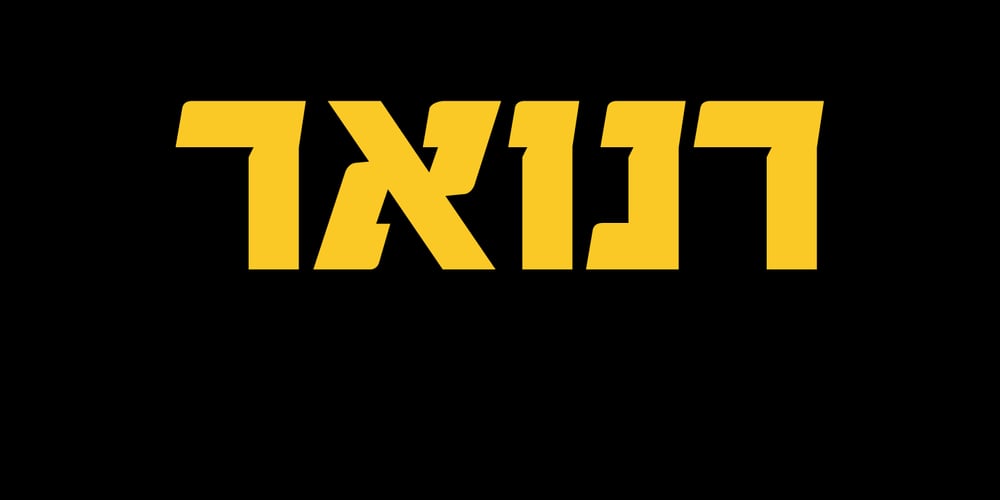
Passport MF Font Family was designed by Daniel Levy and published by Masterfont. Passport MF contains 3 styles and family package options. Bulk and robust headlines – this font family will make them stand out.